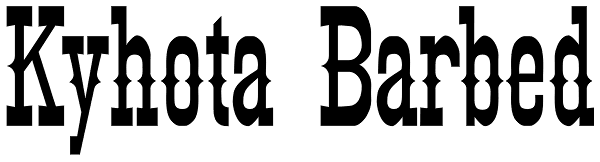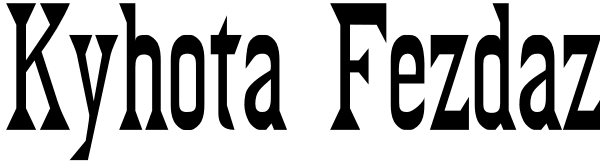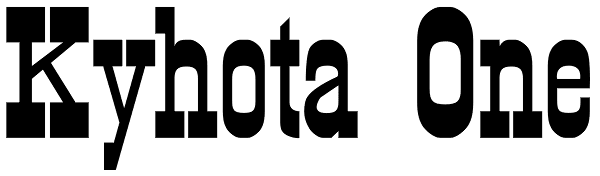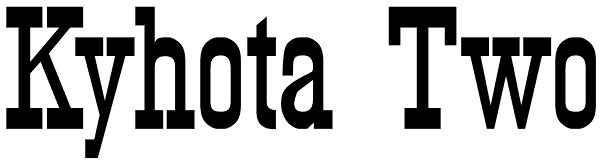
Kyhota
The six typefaces of the Kyhota group all have an “Old West” look to them. KyhotaOne has very thick slab serifs compared to KyhotaTwo. KyhotaBarbed is more condensed than either and has little barbs on the verticals, something that was a feature of...
Kyhota Barbed
Kyhota Big Bottom
Kyhota Big Top
Kyhota Fezdaz
Kyhota One
Kyhota Two